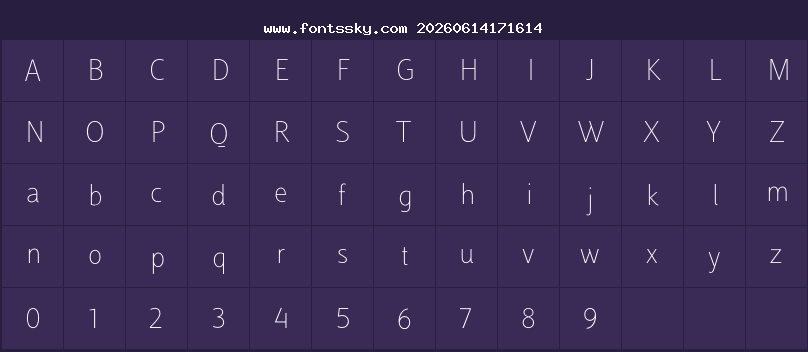
Luiss Sans Thin Sans Preview
• Font Name: Luiss Sans Thin Sans
• Full Font Name: Luiss Sans Thin Sans
• PostScript Name: LuissSans-ThinSans
• Designer: Antonio Pace/Riccardo La Leggia
• Manufacturer: Antonio Pace/Riccardo La Leggia
About Luiss Sans Thin Sans.otf
Luiss Sans Thin Sans.otf is a modern, elegant sans-serif font designed for ultimate readability and visual harmony. Perfect for branding, headlines, web design, and print materials.